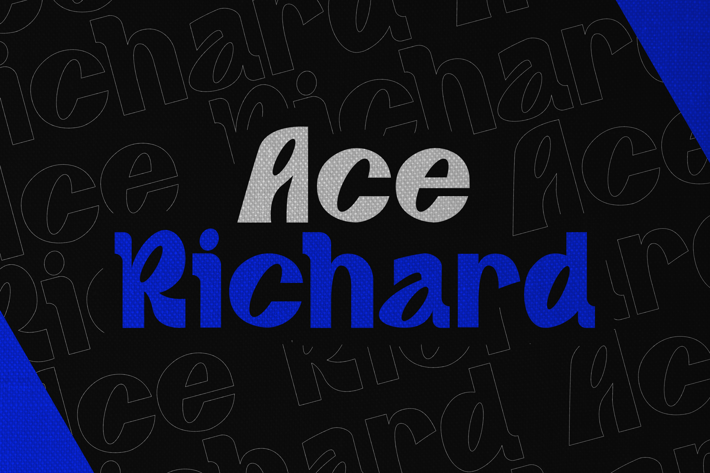
Ace Richard - Display Font
A twist of classic bold san-serif font that will emphasize anything it is written, in a sort of formal way.
Suit perfectly for mature and provocative and encouraging themes books market, economic poster, stationary, school supplies font, youtube covers, youtube thumbnails, social media page covers and so on...
Basic Latin A-Z and a-z, Numbers, Punctuation